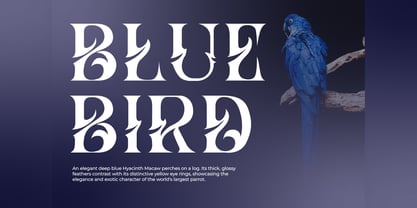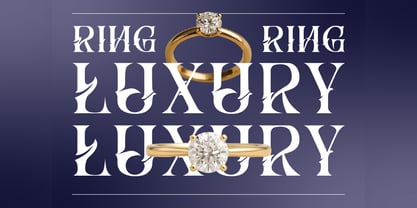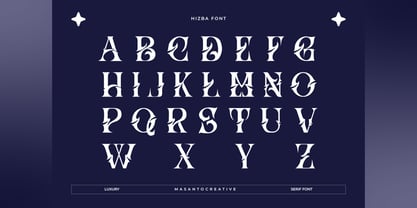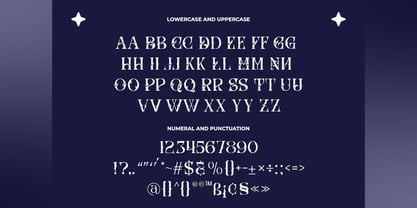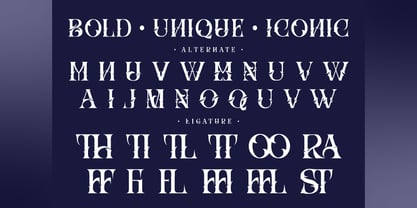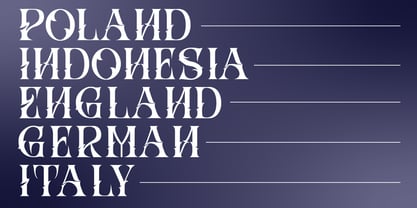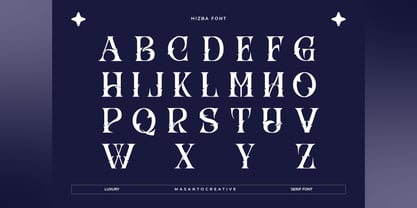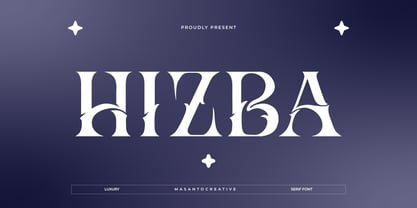
Hizba
by Kangfont Studio
The Hizba Font Family was designed by Sur Anto and published by Kangfont Studio. Hizba contains 1 styles. More about this family
Hizba is an exclusive luxury ornamental serif typeface crafted with bold curves, sharp decorative cuts, and a distinctive high-end aesthetic. Its unique character shapes make it perfect for designers who want a typeface that feels artistic, iconic, and premium.
This font is ideal for logo design, fashion branding, jewelry packaging, editorial layouts, product labels, posters, invitations, and any project that requires a strong and elegant visual statement.
Designers: Sur Anto
Foundry: Kangfont Studio